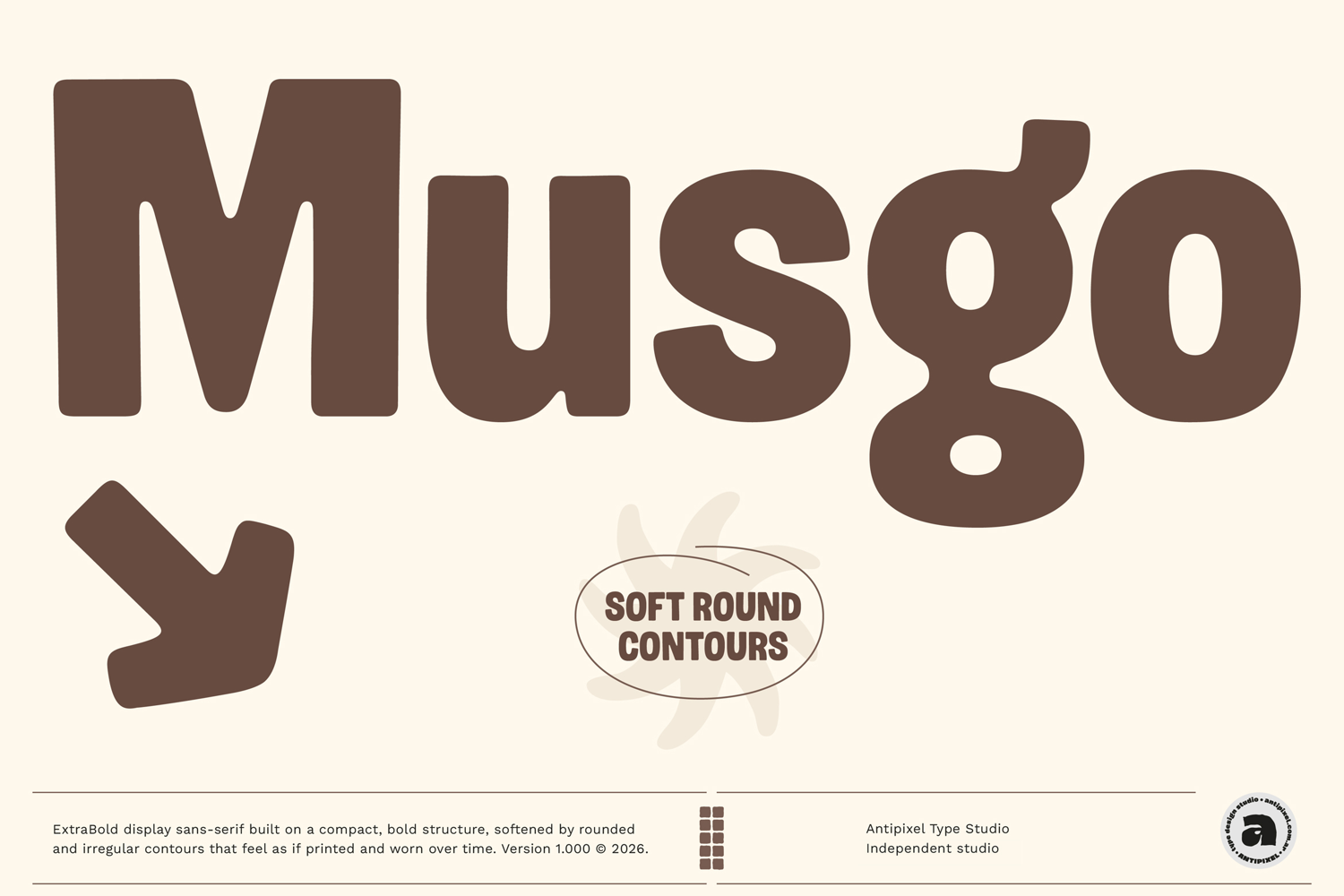
Musgo | Soft Rounded Sans-Serif
Musgo-ExtraBold
Introducing Musgo, an ExtraBold display sans-serif built on a compact, bold structure, softened by rounded and irregular contours that feel as if they had been printed and gently worn over time. This font is simple and organic with a versatile and adaptable character.
Musgo features a condensed structure with vertical axis, short ascenders and descenders, and a large x-height that reinforces its compact and dense appearance. Its outlines are rounded with soft corners, maintaining a low contrast across a heavy weight. Punctuation follows the same logic, with fully rounded forms that integrate naturally into the overall texture of the typeface.
With an organic rhythm across its letterforms, the shapes feel worn and settled, as if printed and gently transformed over time. Its personality sits between playful and bold, resulting in a voice that feels approachable, expressive, and grounded.
With high-quality contours, Musgo is designed for display and large-scale settings, where its graphic qualities come into focus. It works especially well in headlines, posters, editorial covers, branding, logotypes, packaging, and visual identities that seek an expressive human tone, and a subtle sense of materiality.
With a broad Latin character set and carefully balanced proportions, Musgo is meant to make an impact across multiple languages. With extensive glyph support covering 216 languages, it is built for international reach and global use.